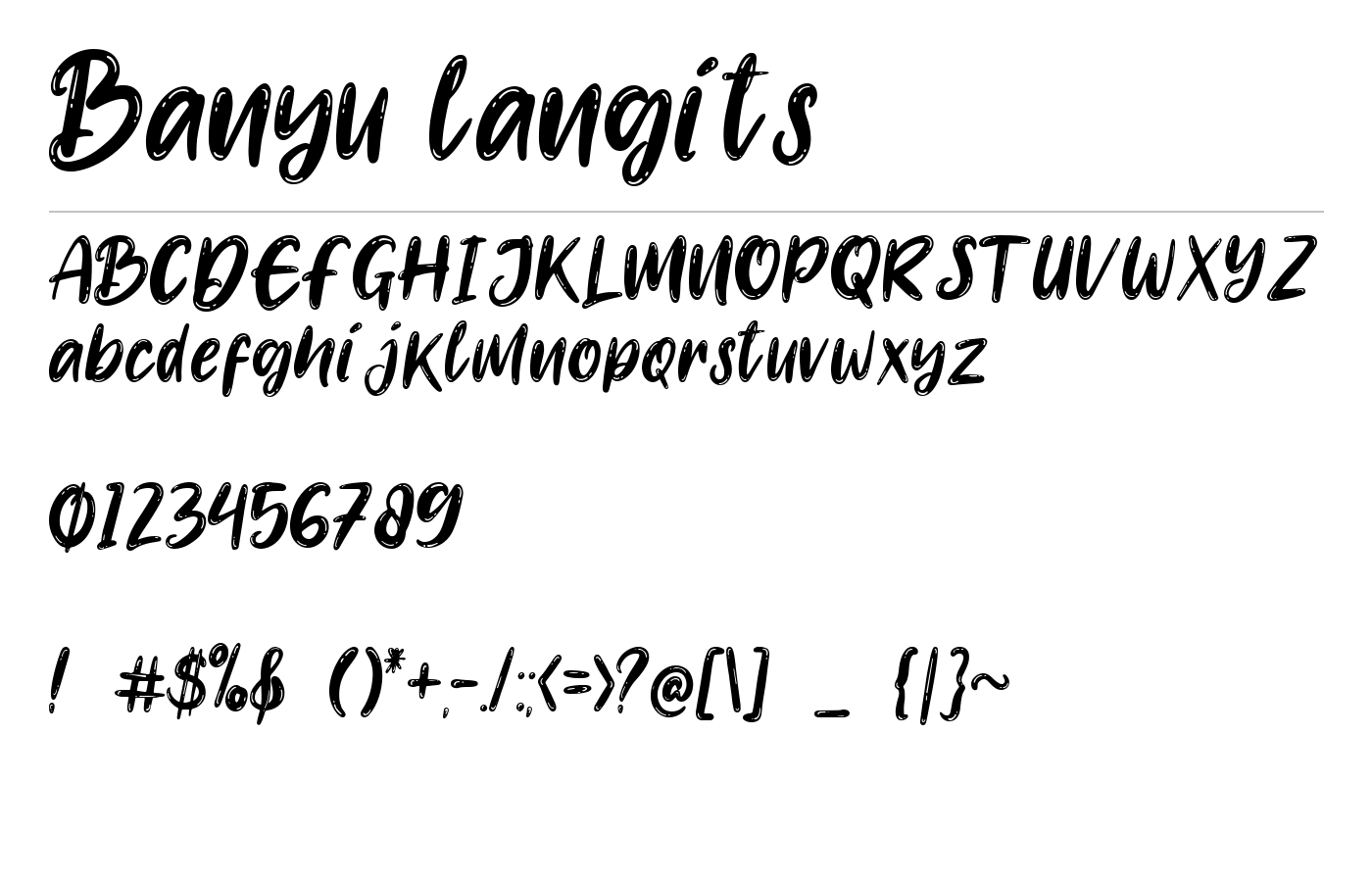
Banyu Langits is a lively brush script font that combines a casual, handwritten feel with expressive, textured strokes. Its moderately tall x-height and dynamic letterforms give it an energetic personality, making it perfect for creative projects, branding, and headlines that want to convey friendliness and artistic flair. This font works beautifully in playful and informal contexts where a personal, handcrafted touch is desired.
Banyu langits Font
About Banyu langits Font
| Font family | Banyu langits Font |
| Designer | Stringlabs |